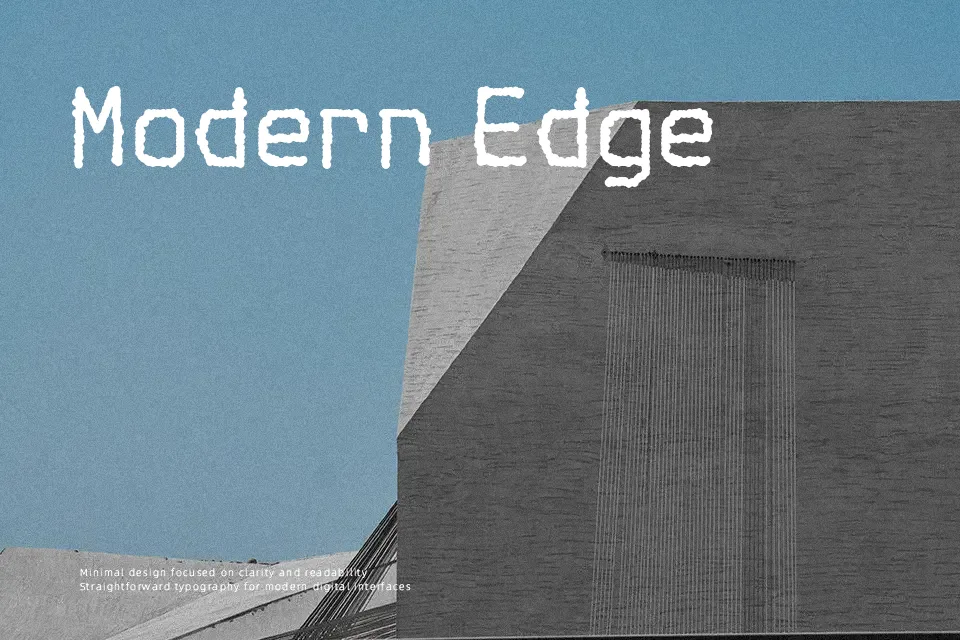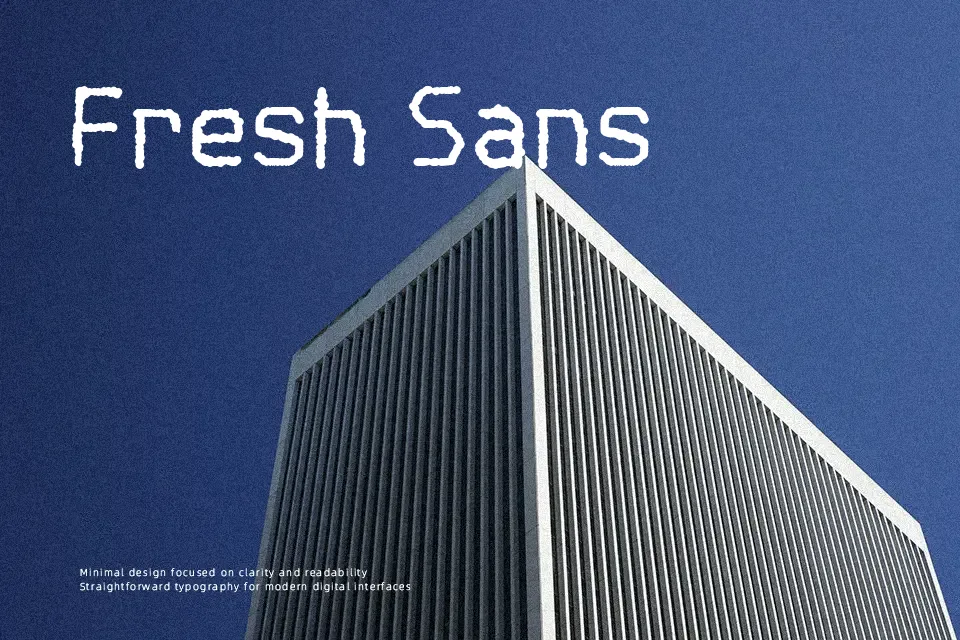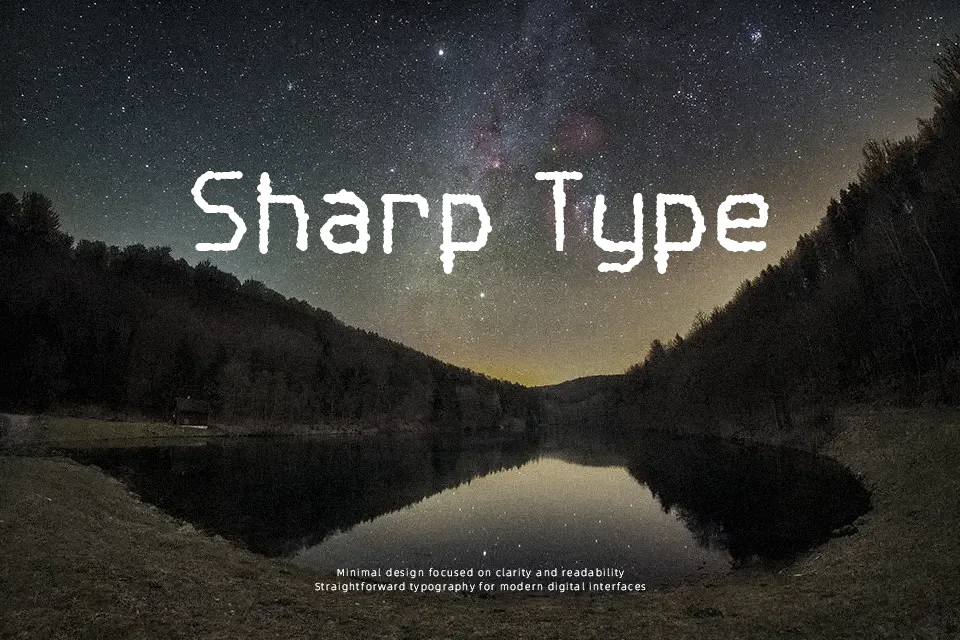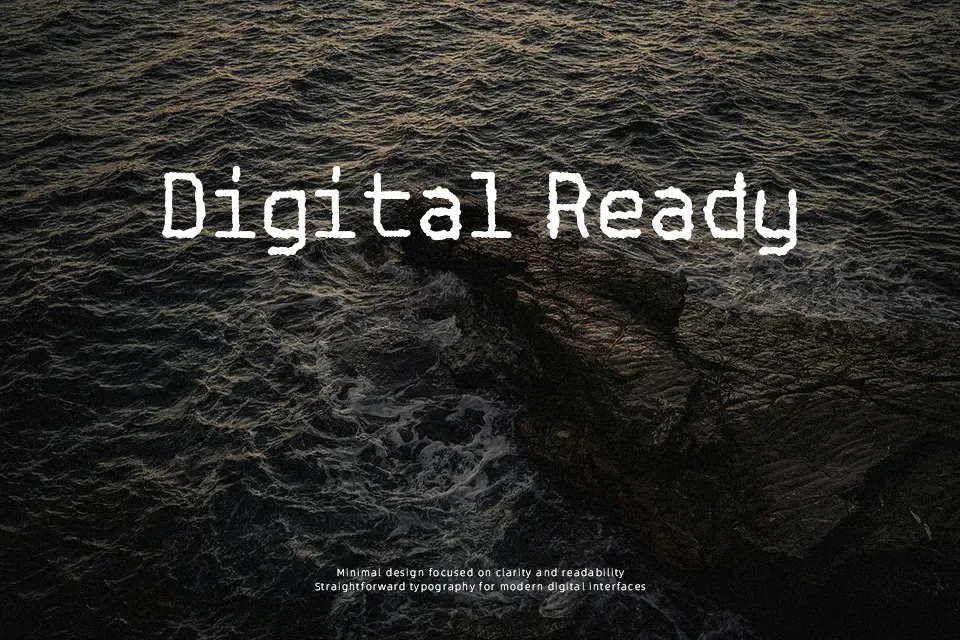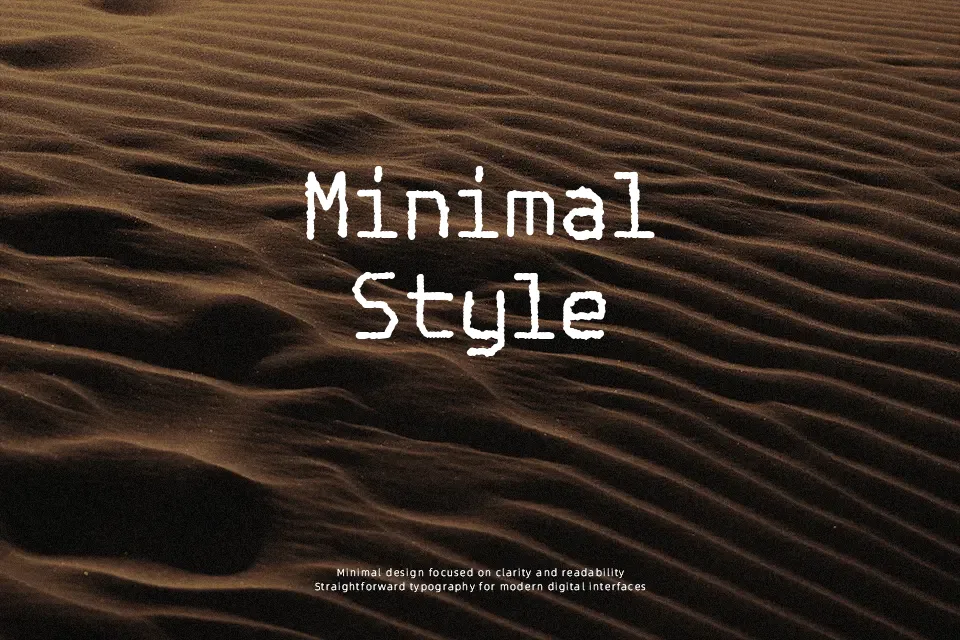
Spotlight Typewriter NC Font
Spotlight Typewriter NC Font showcases a disciplined typewriter aesthetic with prominent slab serifs, unyielding monospaced geometry, and low stroke contrast. Each glyph occupies identical horizontal width, producing structured column alignment and pronounced mechanical rhythm. The uppercase characters display sturdy vertical stems and broad foot terminals, while lowercase letters maintain generous inner counters that preserve legibility at moderate display sizes. This typeface suits retro publication headers, fictional correspondence props, and detective-themed packaging. However, prolonged reading comfort decreases in body paragraphs due to the rigid spacing. The robust terminals ensure crisp definition on textured backgrounds, making it particularly dependable for atmospheric title sequences.
Best For: retro editorial headlines, vintage document replicas, mystery novel cover art, theatrical prop designs
Not Ideal For: dense academic papers, mobile app interface labels, spreadsheet data tables, extensive body paragraphs
Perfect for branding, editorial, and headline, with a classic and display style.